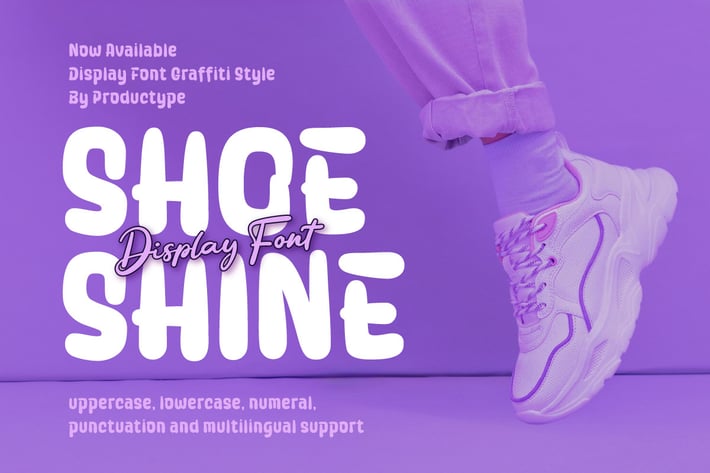
Shoeshine - Display Font
Shoeshine Display Font is a graffiti-style font that is now available for your design needs. This font is very suitable for product branding, especially shoe products, thanks to its bold, unique, and stylish characteristics.
The Shoeshine Display Font is ideal for use in shoe branding, giving a fresh and energetic look to logos, posters, packaging, and various other promotional materials. With a strong graffiti style, this font will make your brand stand out and attract attention.
- Fonts include Multilingual support